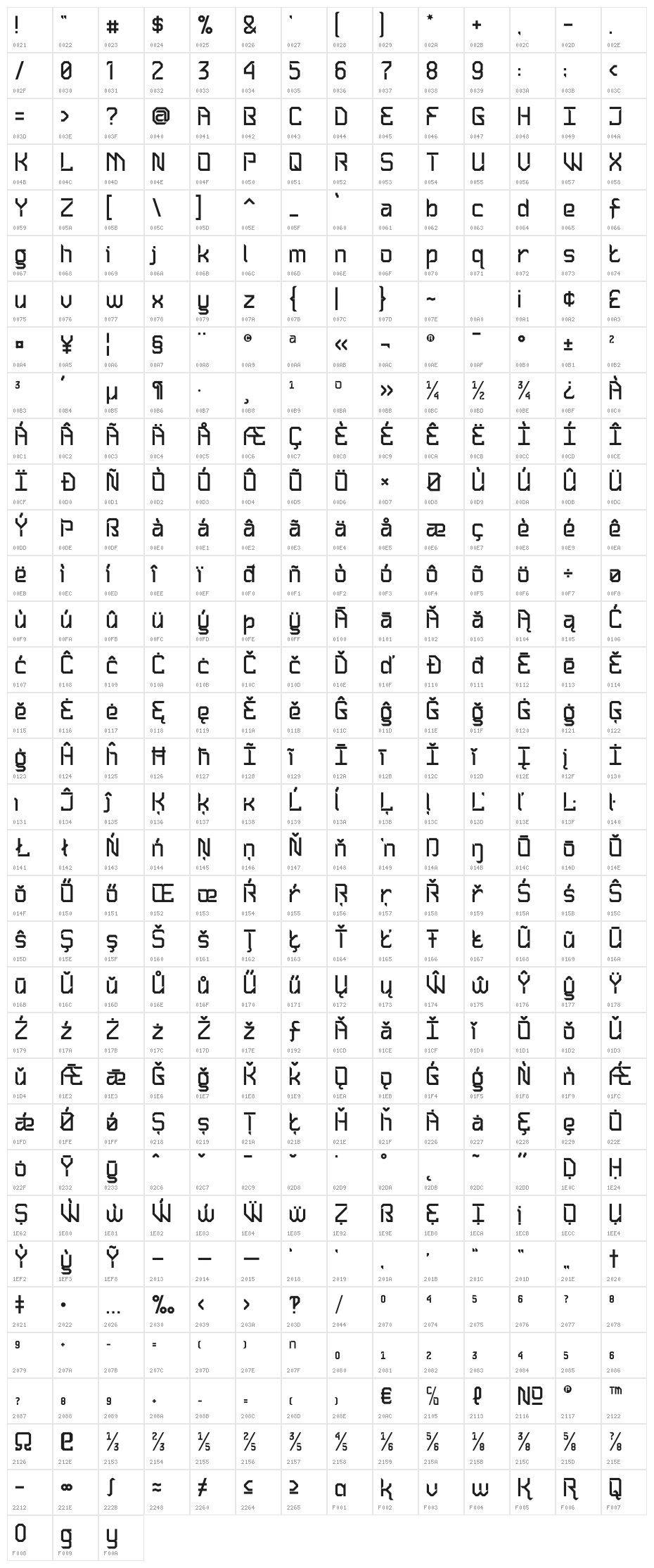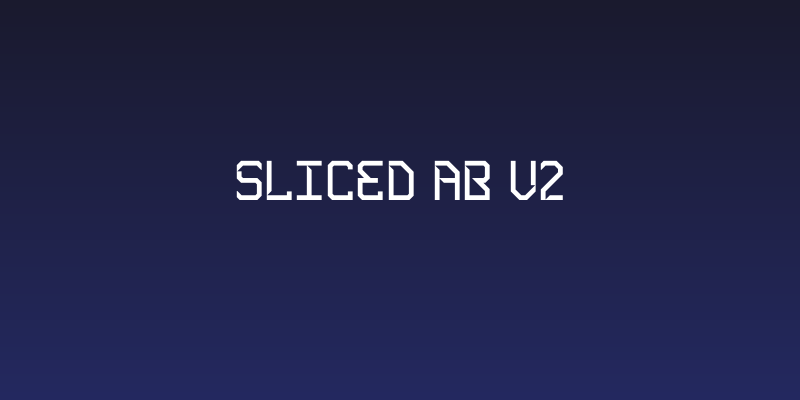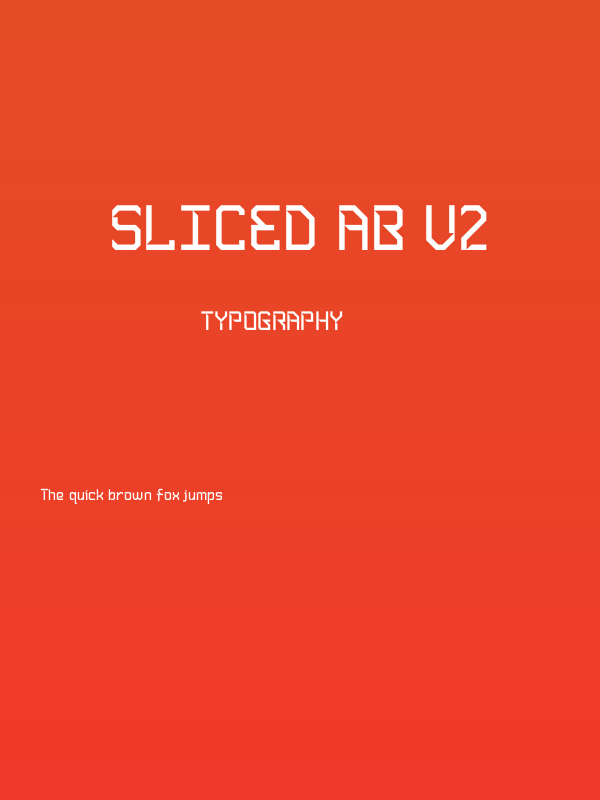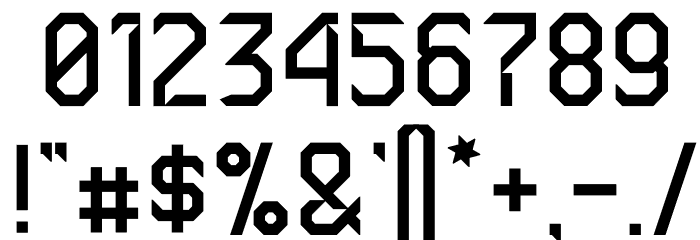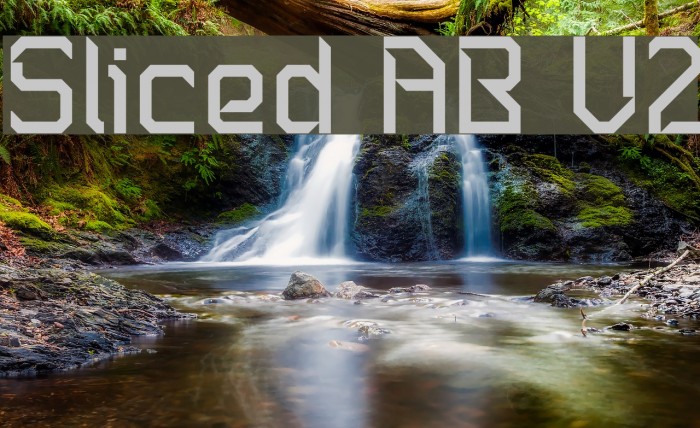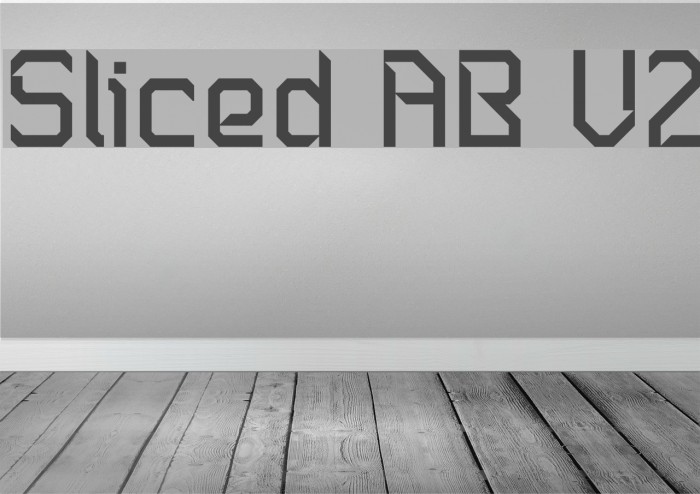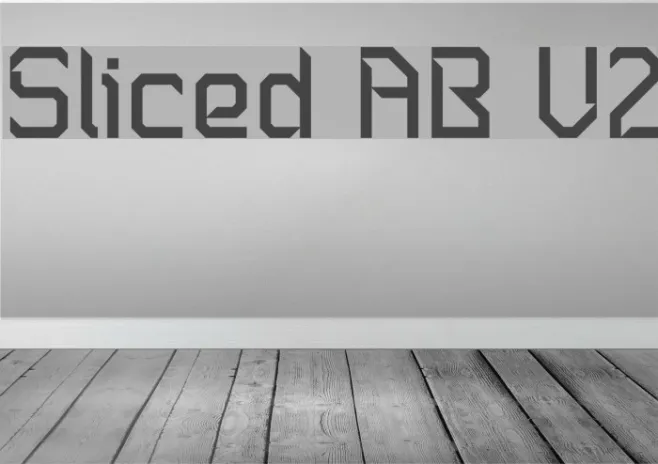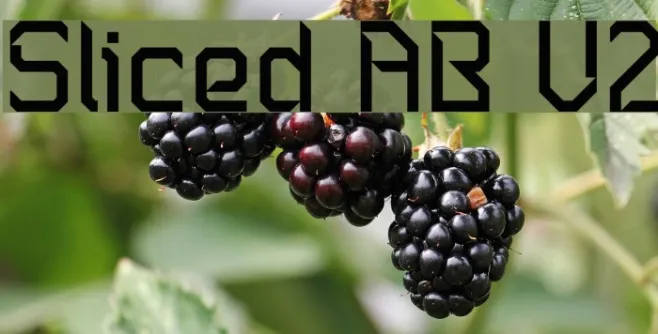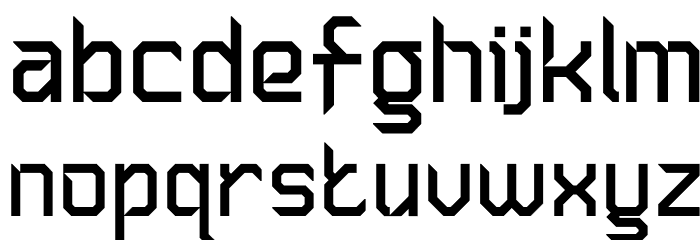
Sliced AB V2 Font
Sliced AB V2 Description
This font features a bold and angular design, characterized by sharp edges and geometric forms. The uppercase and lowercase letters maintain a consistent style, with a futuristic and industrial feel. The numerals and special characters follow the same aesthetic, ensuring uniformity across all glyphs. The font's distinct appearance makes it suitable for projects that require a modern and edgy look. Its high readability and unique style make it stand out, especially in digital and print media.
| Proposed Projects | Ideal for branding, posters, video game graphics, and tech-related projects. |